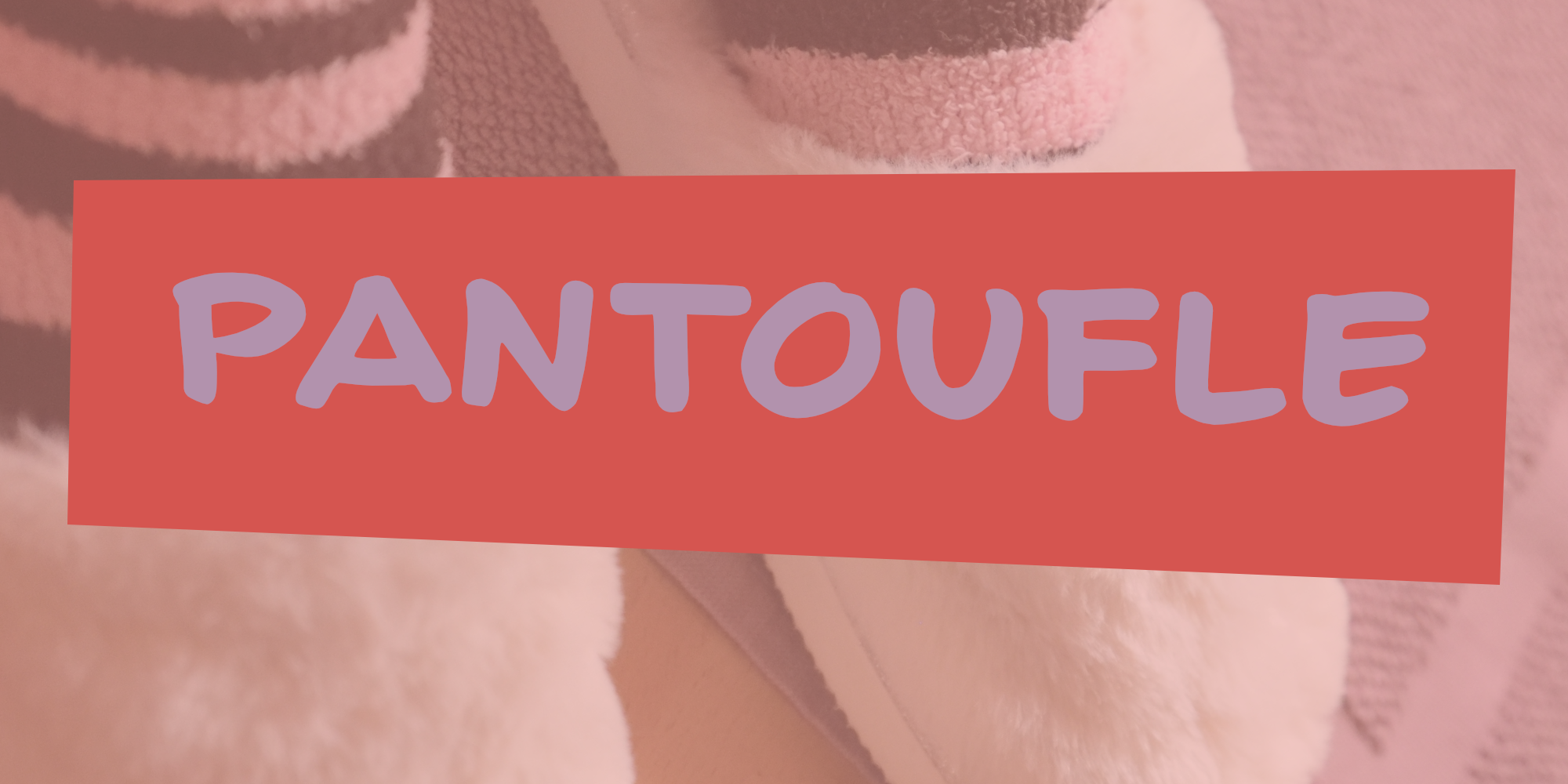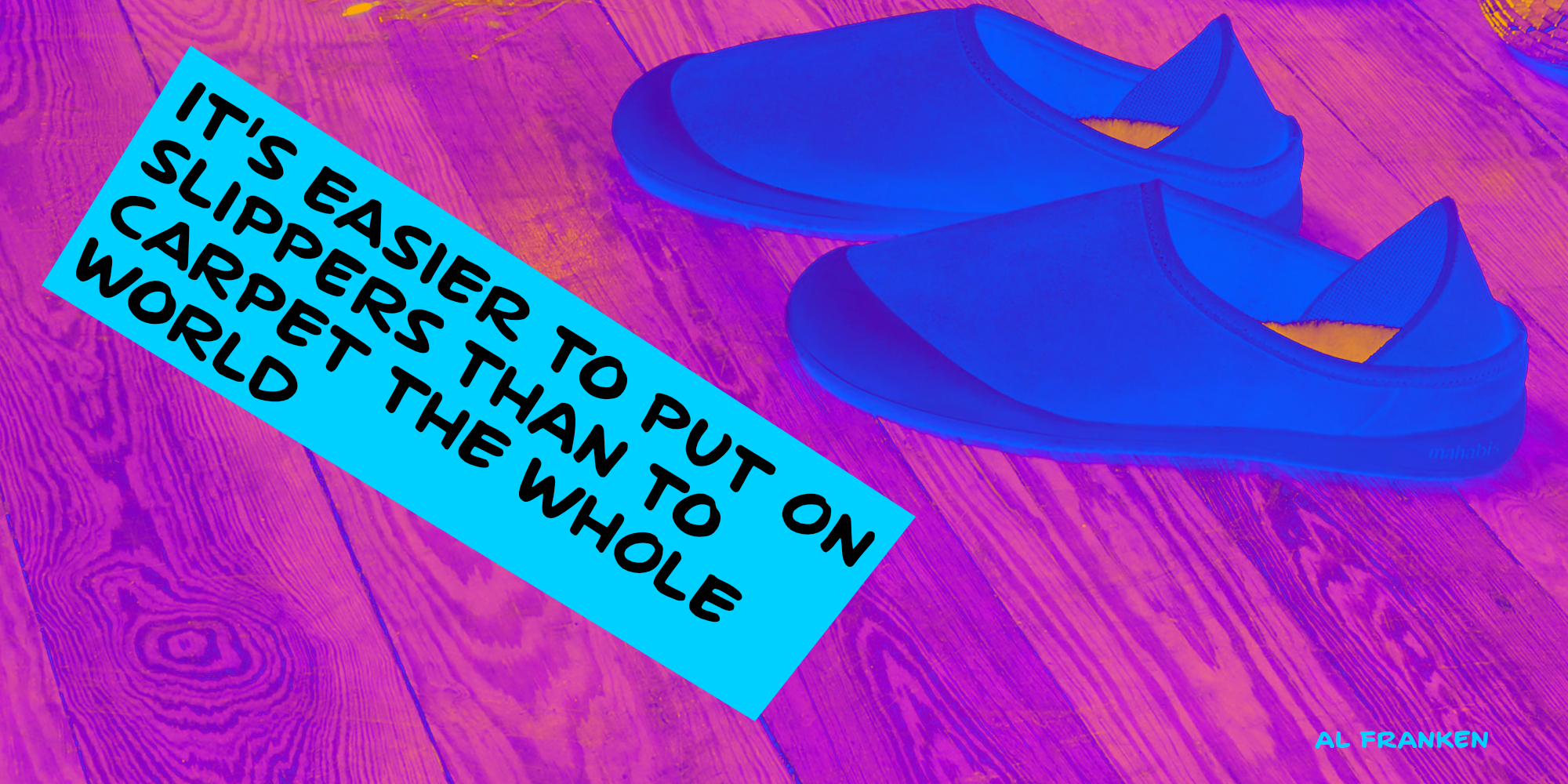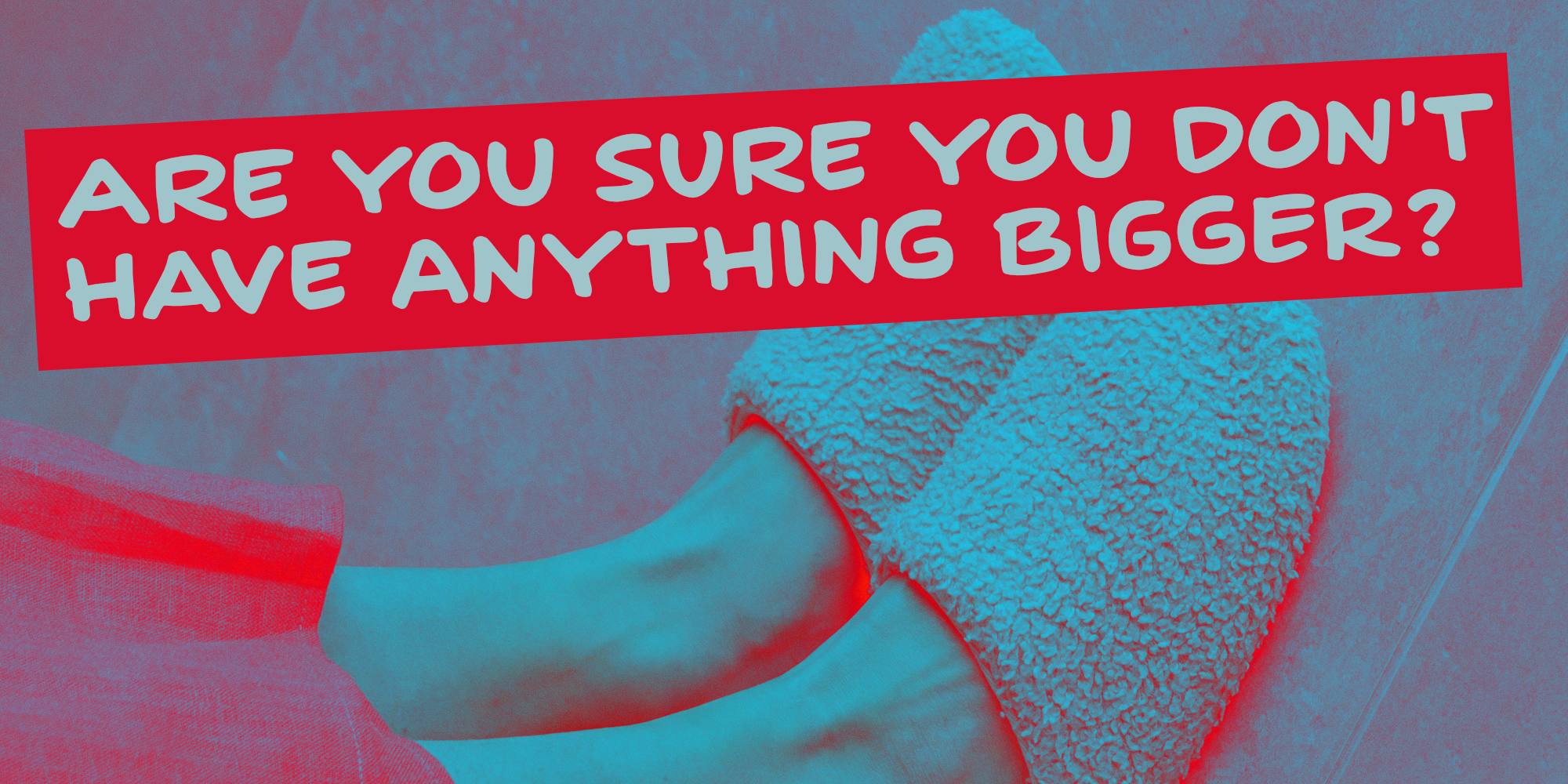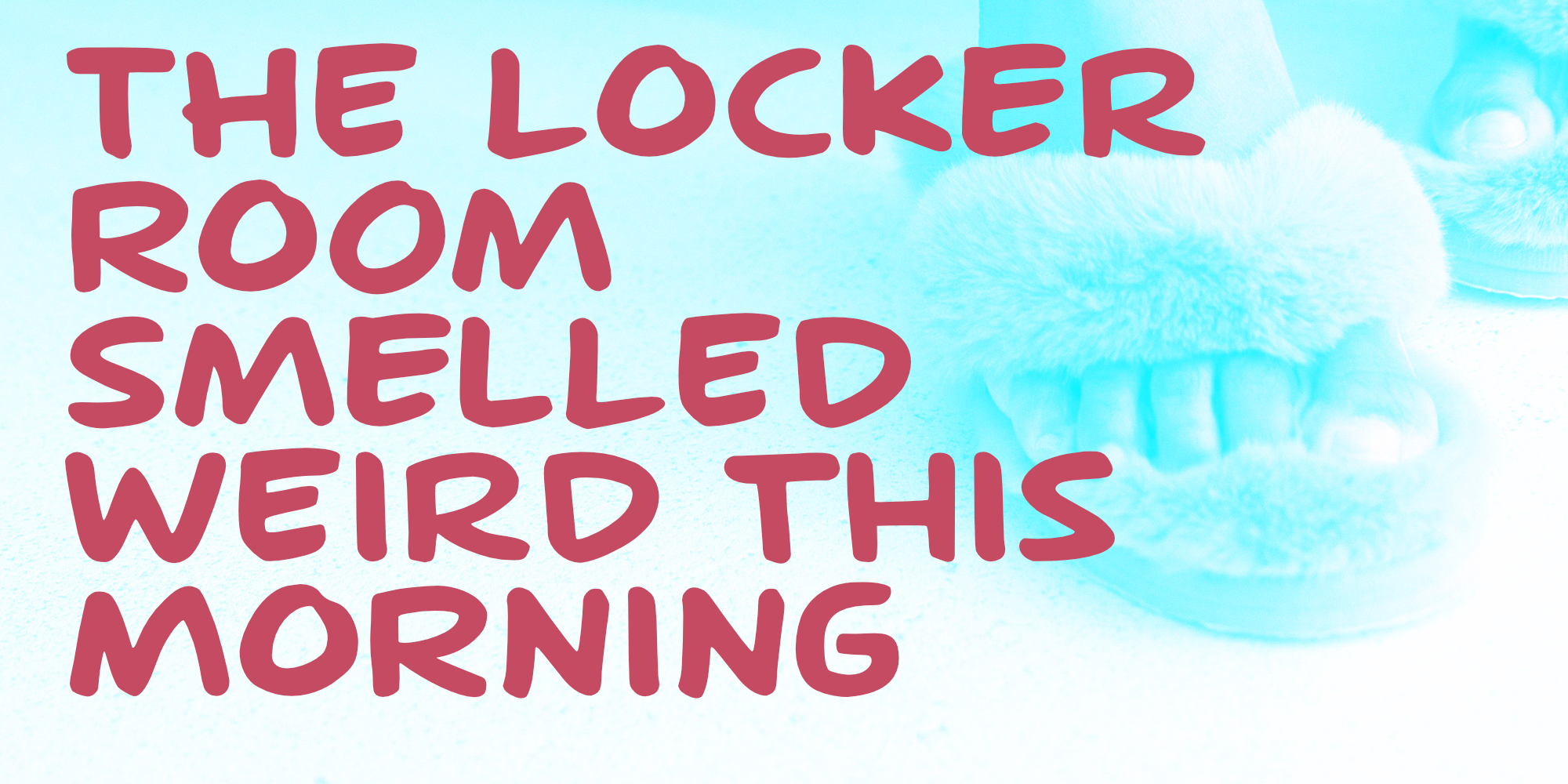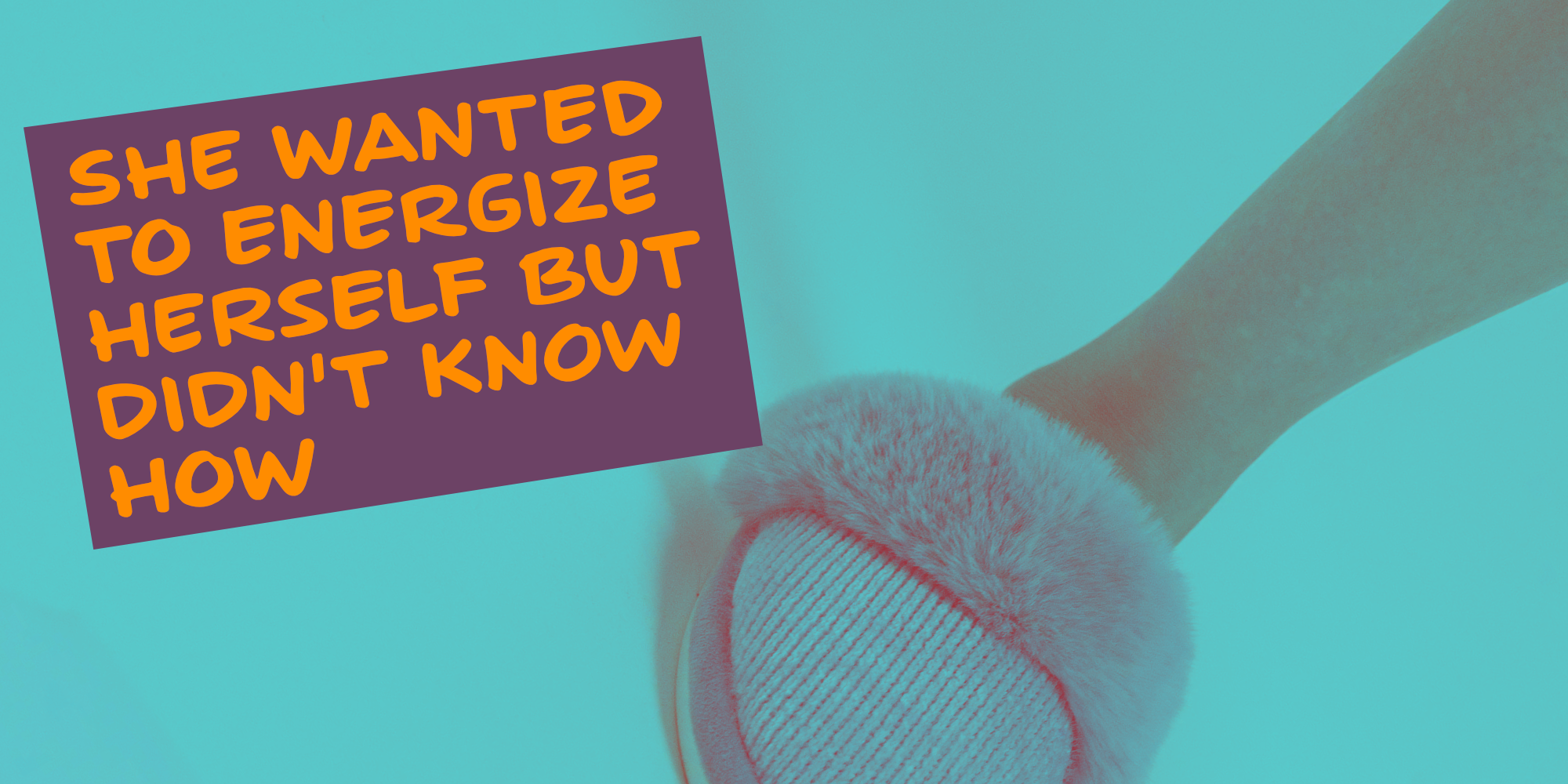
Pantoufle (2 fonts)
Pantoufle is a font I made with a big fat marker pen. My kids had used it to decorate some gifts for Sinterklaas (if you want to know what Sinterklaas is, look it up). Pantoufle comes with extensive language support and a full set of alternates for the lower case glyphs. Enjoy!